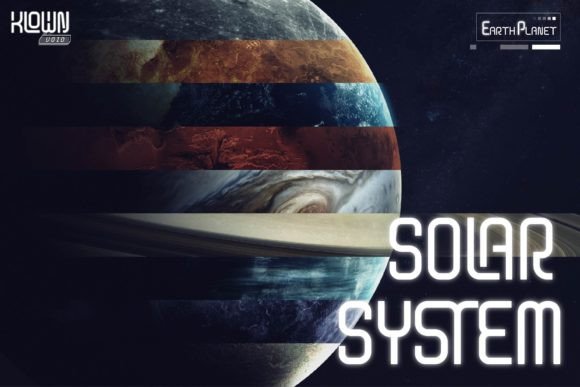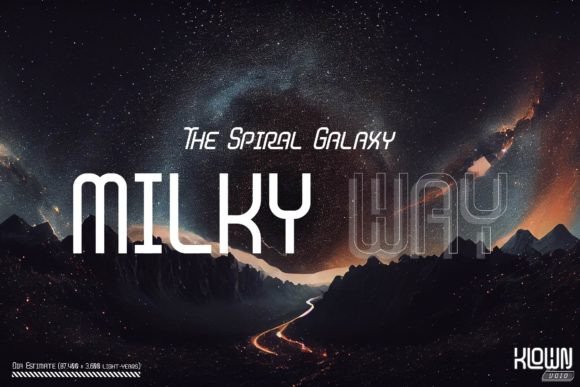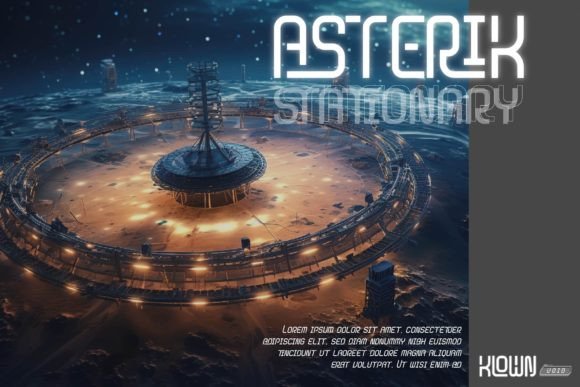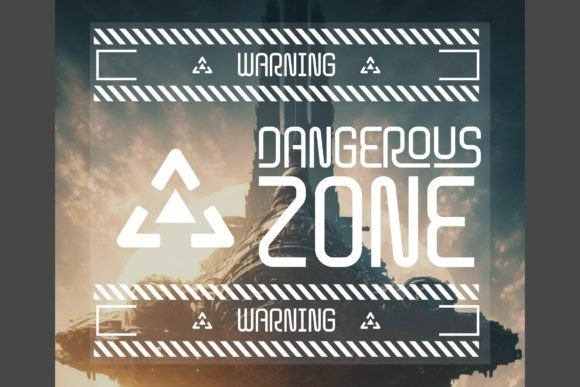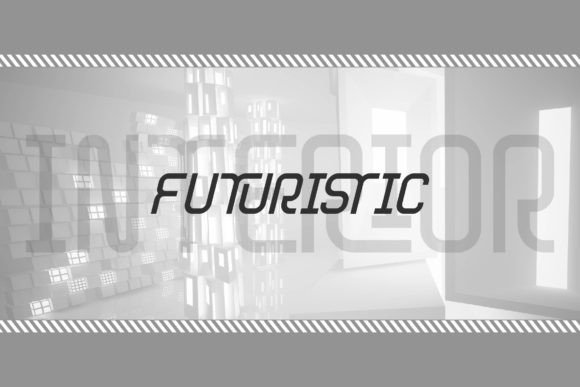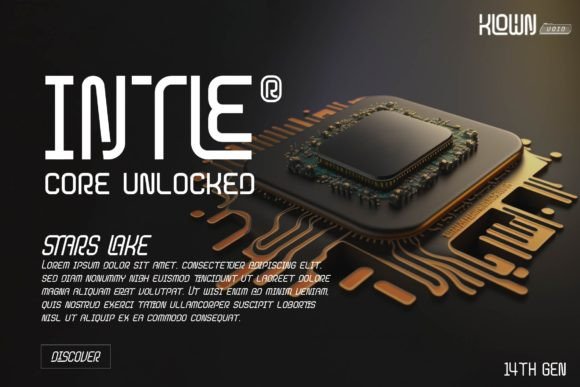
Introduction to Klown Void Font
Klown Void is a modern sans serif font, suitable for any projects such as: logos, branding projects, homeware designs, product packaging, mugs, quotes, posters, shopping bags, t-shirts, book covers, name card, invitation cards, greeting cards, label, photography, watermark, special events, and all your other lovely projects that need a Modern Space taste.
Key Features of Klown Void Font
Why Choose Klown Void Font?
Klown Void Font offers exceptional quality and versatility, making it a valuable addition to your design toolkit. Whether you’re creating for personal projects or commercial use, Klown Void Font delivers professional results.